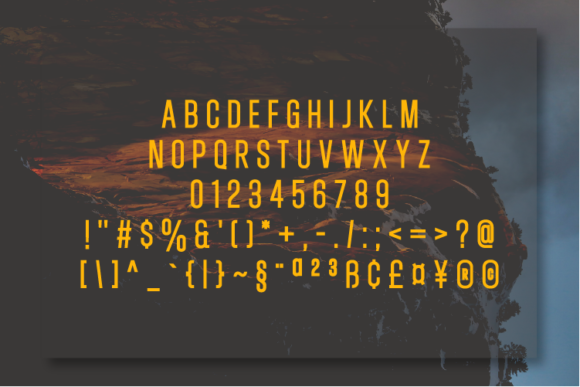
Introduction to Pashalovia Medium Font Font
Fonts play a crucial role in design, and the Pashalovia Medium Font font is a typeface that brings both character and versatility to any project. Whether you’re working on a branding project, a website, or a print design, the Pashalovia Medium Font font offers a unique style that can elevate your work.
Pashalovia is a versatile sans serif with minimum contrast strokes, closed apertures and geometric shapes as characters.
This typeface will deliver any message with style, clarity and legibility .
Key Features of Pashalovia Medium Font Font
Why Choose Pashalovia Medium Font Font?
The Pashalovia Medium Font font is more than just a typeface – it’s a design tool that helps you communicate your message with style and clarity. Its unique character set and versatile design make it suitable for a wide range of applications, from elegant invitations to bold headlines.
With its carefully crafted letterforms and balanced proportions, the Pashalovia Medium Font font ensures readability and visual appeal across all mediums.
What makes Pashalovia Medium Font font special?
The Pashalovia Medium Font font stands out with its unique design, exceptional readability, and versatility across various design applications.